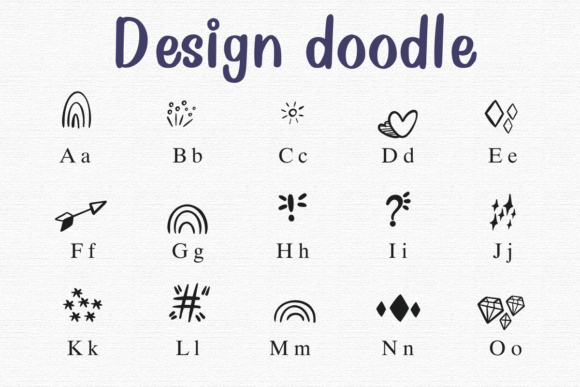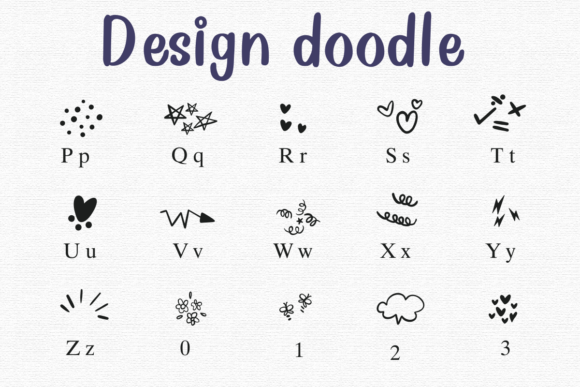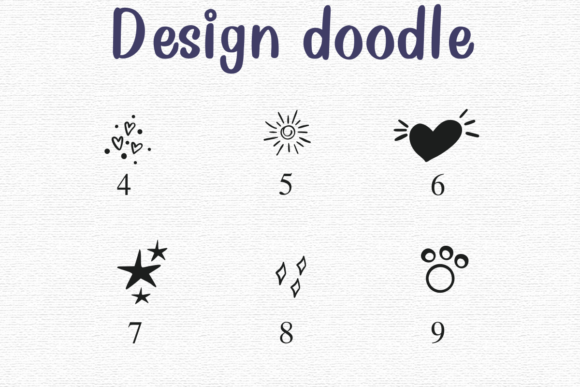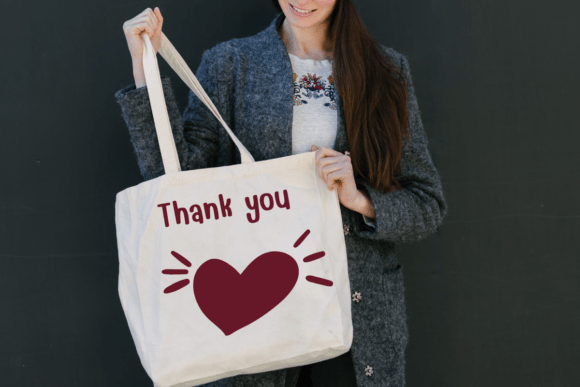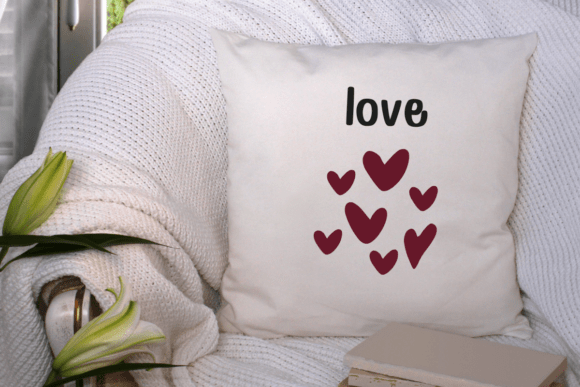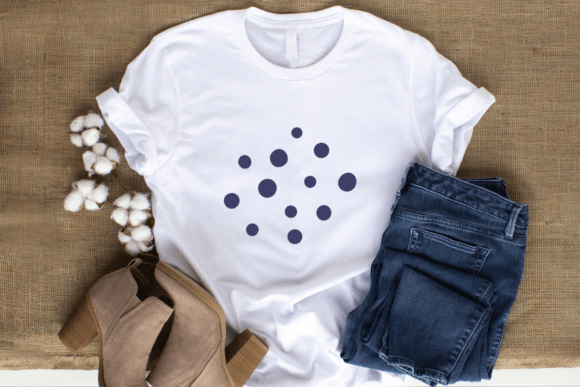
Introducing Design Doodle Font: Add Whimsy and Charm to Your Designs
Are you tired of using the same old fonts in your designs? Do you want to add a touch of playfulness and creativity to your work? Look no further than the Design Doodle Font! This delightful dingbats font is packed with whimsical elements like stars, hearts, arrows, sparkles, swirls, and fun hand-drawn shapes that are perfect for adding charm to planners, scrapbooks, stickers, branding, and social media graphics.
What is Design Doodle Font?
Design Doodle Font is a unique and versatile font that features a wide range of doodle-inspired elements. From stars and hearts to arrows and swirls, this font has everything you need to add a touch of whimsy to your designs. The font is made up of hand-drawn shapes and symbols that are carefully crafted to give your work a personal and playful feel.
Key Features of Design Doodle Font
- Whimsical elements: The font features a wide range of whimsical elements, including stars, hearts, arrows, sparkles, swirls, and fun hand-drawn shapes.
- Playful and creative: Design Doodle Font is perfect for adding a touch of playfulness and creativity to your designs.
- Hand-drawn: The font features hand-drawn shapes and symbols that give your work a personal and unique feel.
- Versatile: Design Doodle Font can be used in a variety of projects, including planners, scrapbooks, stickers, branding, and social media graphics.
Uses for Design Doodle Font
Design Doodle Font is perfect for a wide range of projects, including:
- Planners: Add a touch of whimsy to your planners with the Design Doodle Font. Use the font to create fun and colorful headers, dividers, and decorations.
- Scrapbooks: Take your scrapbooking to the next level with the Design Doodle Font. Use the font to add fun and playful elements to your pages.
- Stickers: Create custom stickers with the Design Doodle Font. Use the font to add fun and colorful text and graphics to your stickers.
- Branding: Use the Design Doodle Font to add a touch of personality to your brand. The font is perfect for creating fun and playful logos, social media graphics, and marketing materials.
- Social media graphics: Add a touch of whimsy to your social media graphics with the Design Doodle Font. Use the font to create fun and playful graphics that will help you stand out on social media.
Tips for Using Design Doodle Font
Here are a few tips for getting the most out of the Design Doodle Font:
- Experiment with different colors: The Design Doodle Font looks great in a variety of colors. Experiment with different colors to find the perfect look for your project.
- Mix and match elements: Don’t be afraid to mix and match different elements from the font to create a unique look.
- Use the font to add texture: The Design Doodle Font can be used to add texture and interest to your designs. Use the font to create fun and playful textures that will add depth to your work.